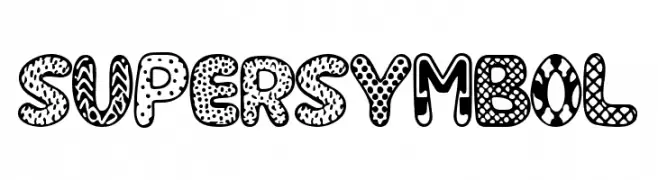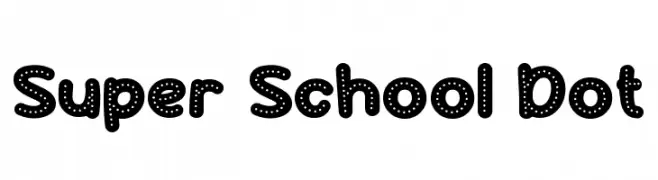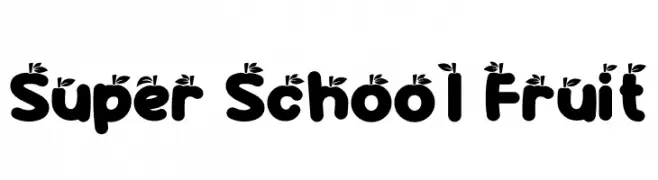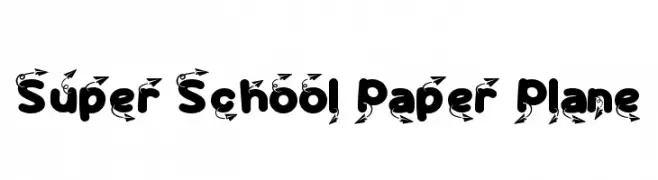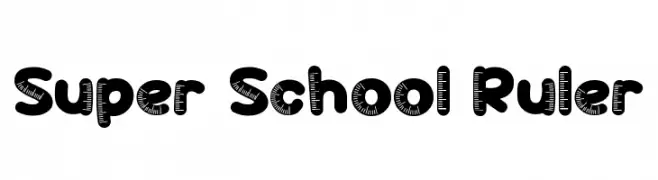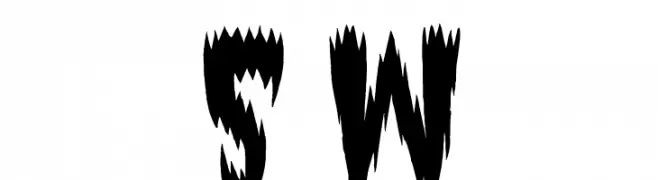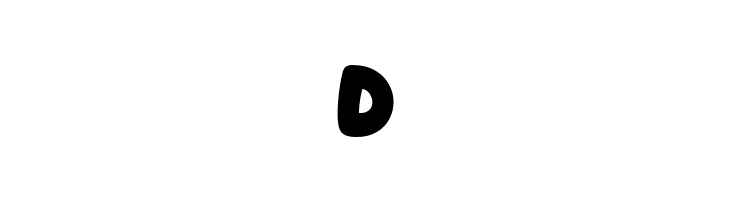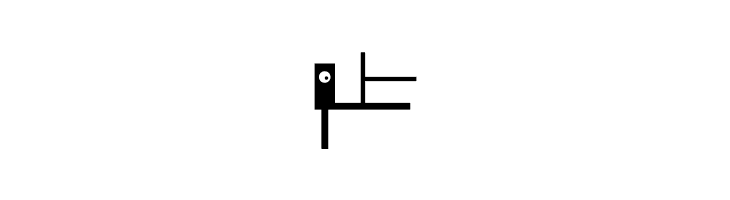
A bold, rounded font with a playful dotted pattern, perfect for creative projects.
A playful, bold font with leaf-like accents on each character, perfect for fun and creative projects.
A bold, playful font with paper plane decorations, perfect for creative projects.
A playful, ruler-themed font with bold, rounded letters and medium contrast.
Bold, rounded, and playful font.
A bold, jagged font with sharp, irregular edges for dramatic impact.
A city skyline-inspired font with characters resembling building silhouettes.
A playful, bold decorative font with unique patterned characters.
A geometric, abstract font inspired by Suprematism, featuring bold, intersecting shapes.